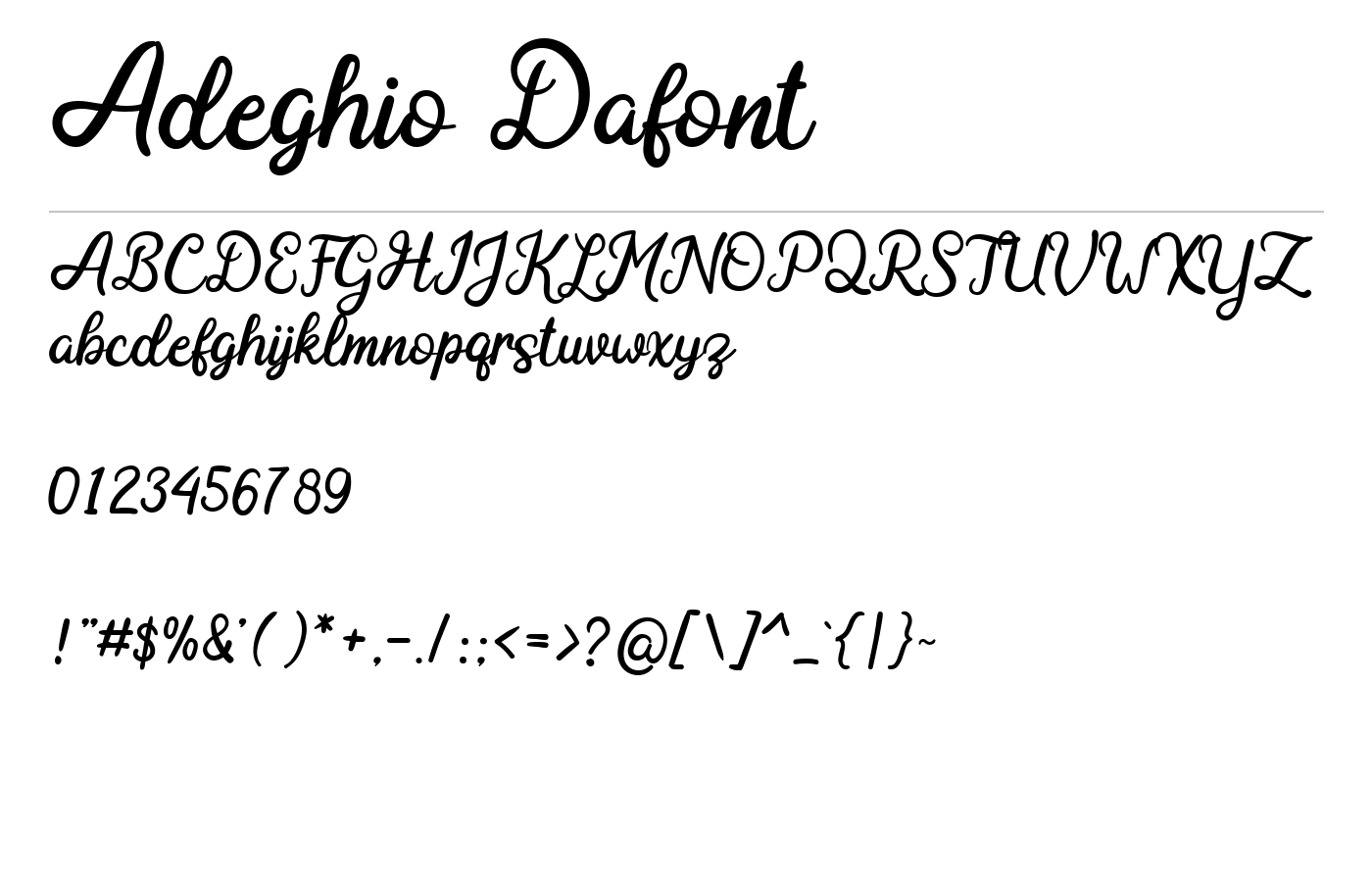
Adeghio Dafont is a graceful script font with a smooth, flowing style that mimics elegant handwriting. Its medium weight and slightly condensed letterforms give it a refined yet approachable look, making it ideal for invitations, branding, and creative projects where a personal, stylish touch is desired. This font works well in both headlines and short body text, adding charm and sophistication without sacrificing readability.
Adeghio Dafont